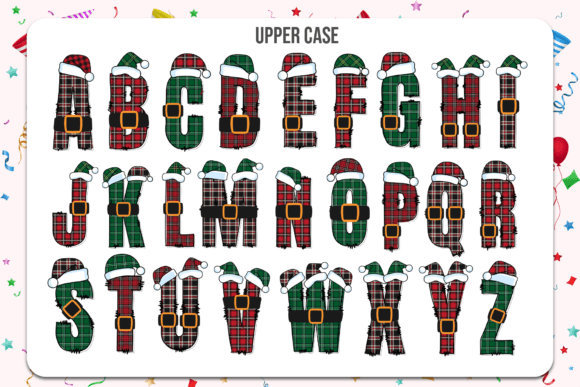
Xmas is a creative plaid print color font with lovely Santa Claus hat elements. It embodies playfulness and authenticity and is the perfect choice for any Christmas project or any children’s activity or any school project.
Xmas Font